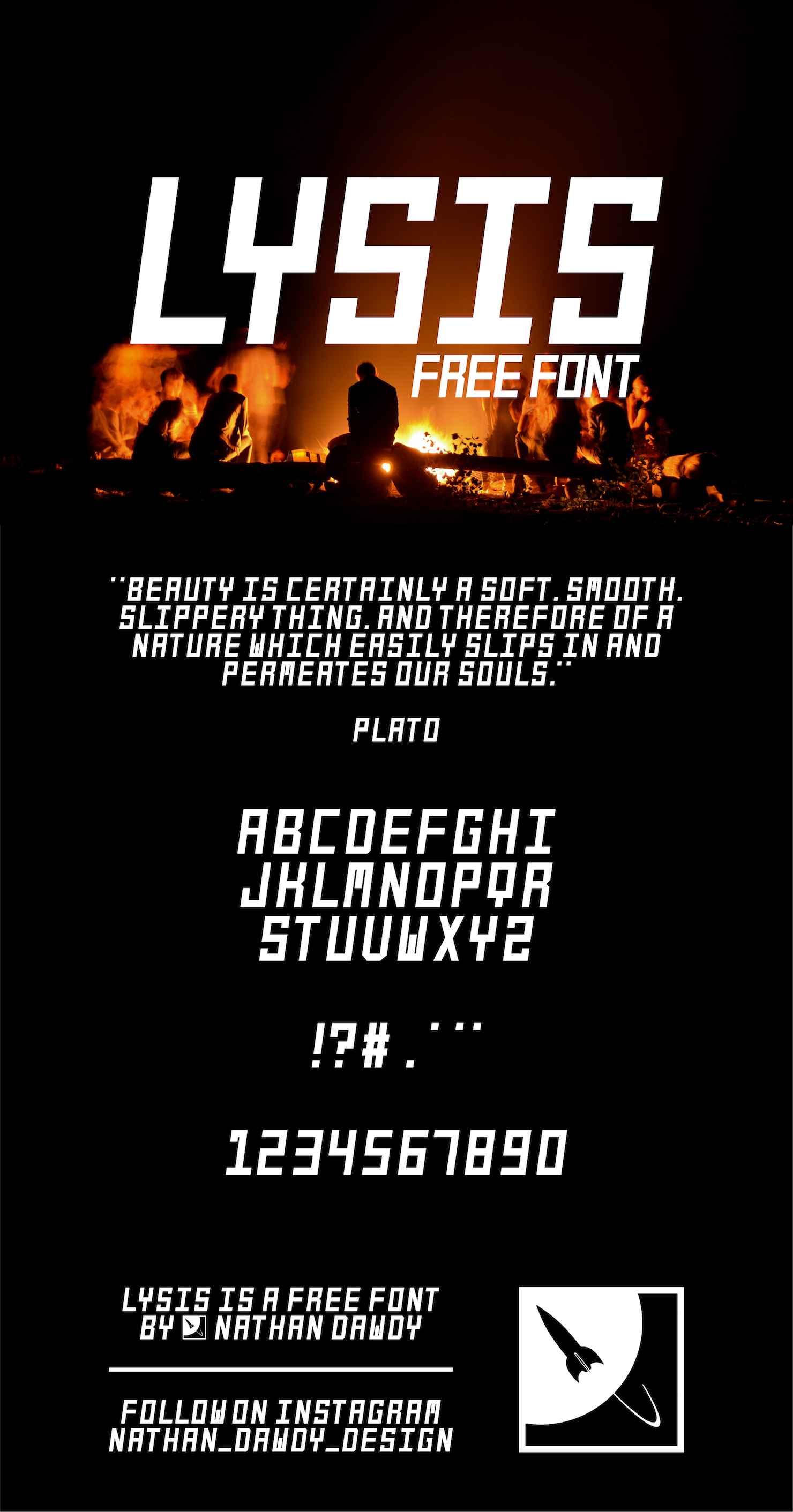
Lysis was designed by Nathan Dawdy and contains uppercase characters, numbers, and a series of symbols. The font is perfect for everything from posters to logos to book covers! Lysis is free for both personal and commercial use!